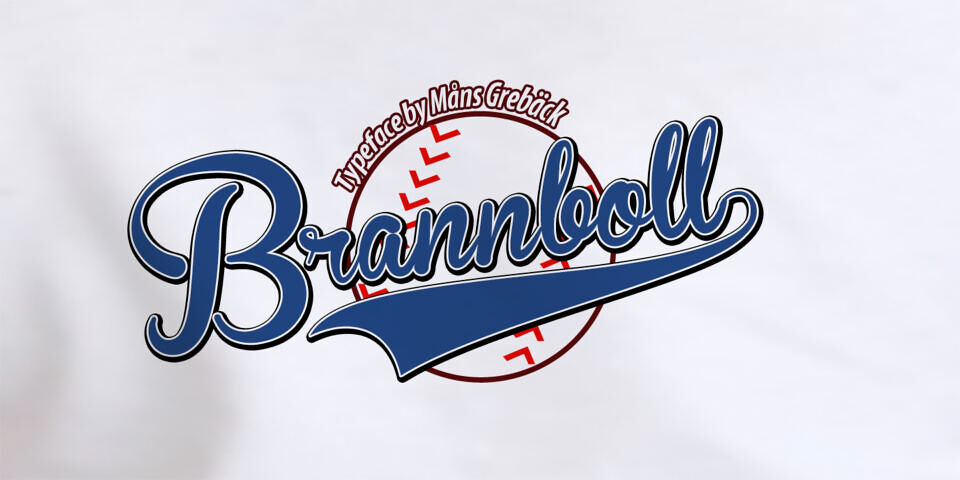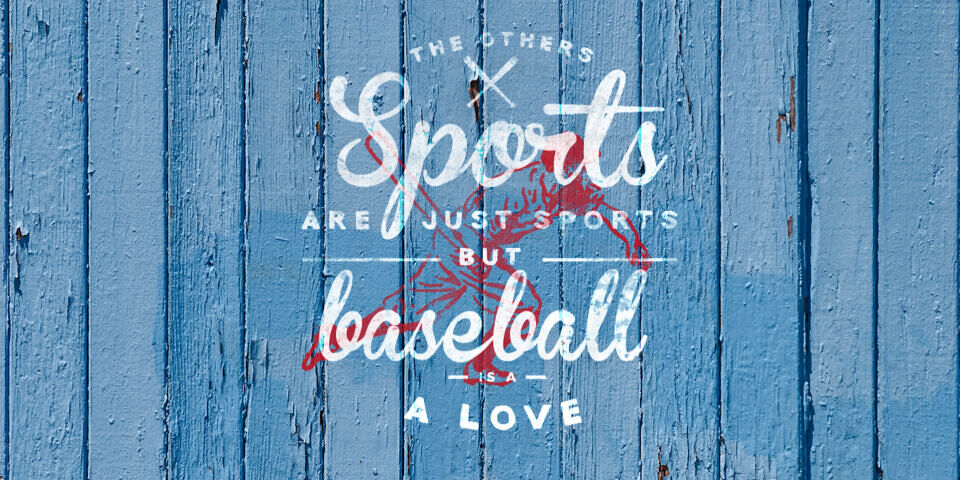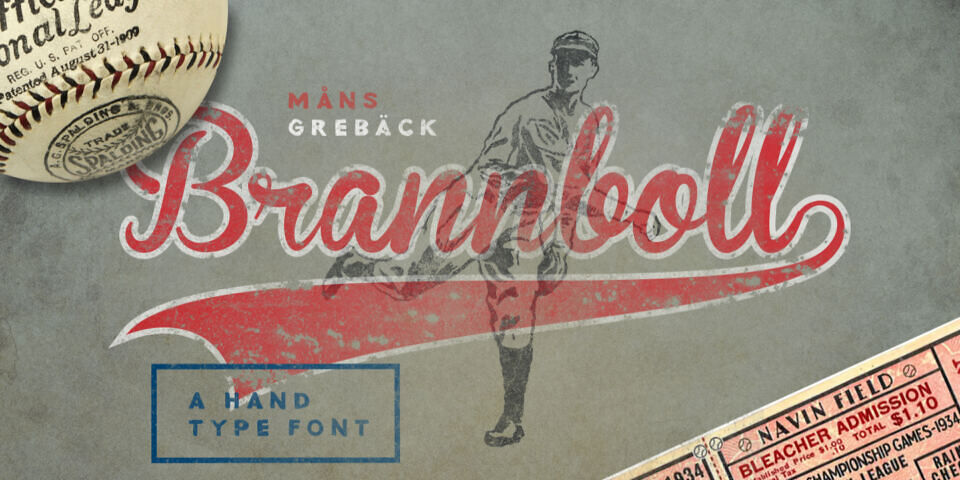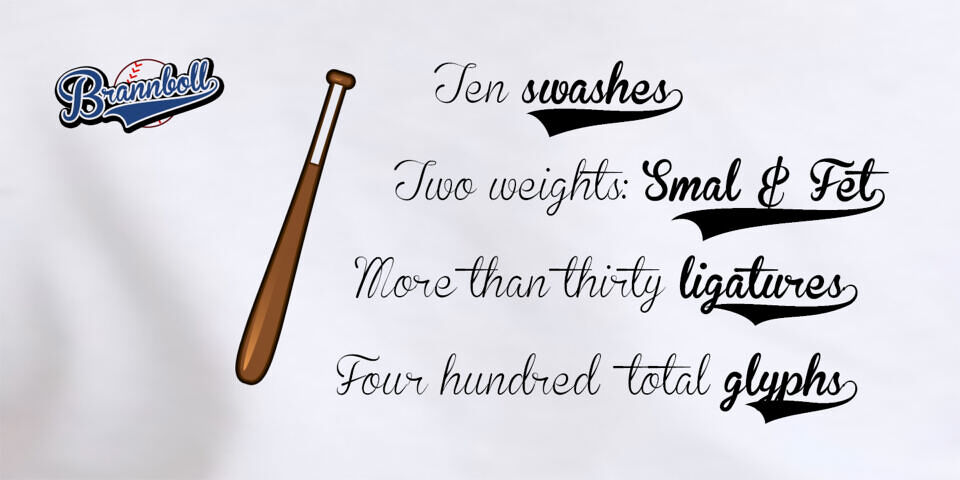
Brannboll Font
Brannboll is a Baseball style script font. Contains ten different swashes to get a custom look on the words you write. Includes numbers! A
Brannboll Stencil: All whitespaces are connected with the background, making it flawless for work on signs, jewelry, stencils, and general cutting. Brannboll Connect: Each character and all their parts are physically connected, making it a lettering perfect for laser cutting, signs, jewelry, woodworking, and embroidery.
Designed by: Måns Grebäck